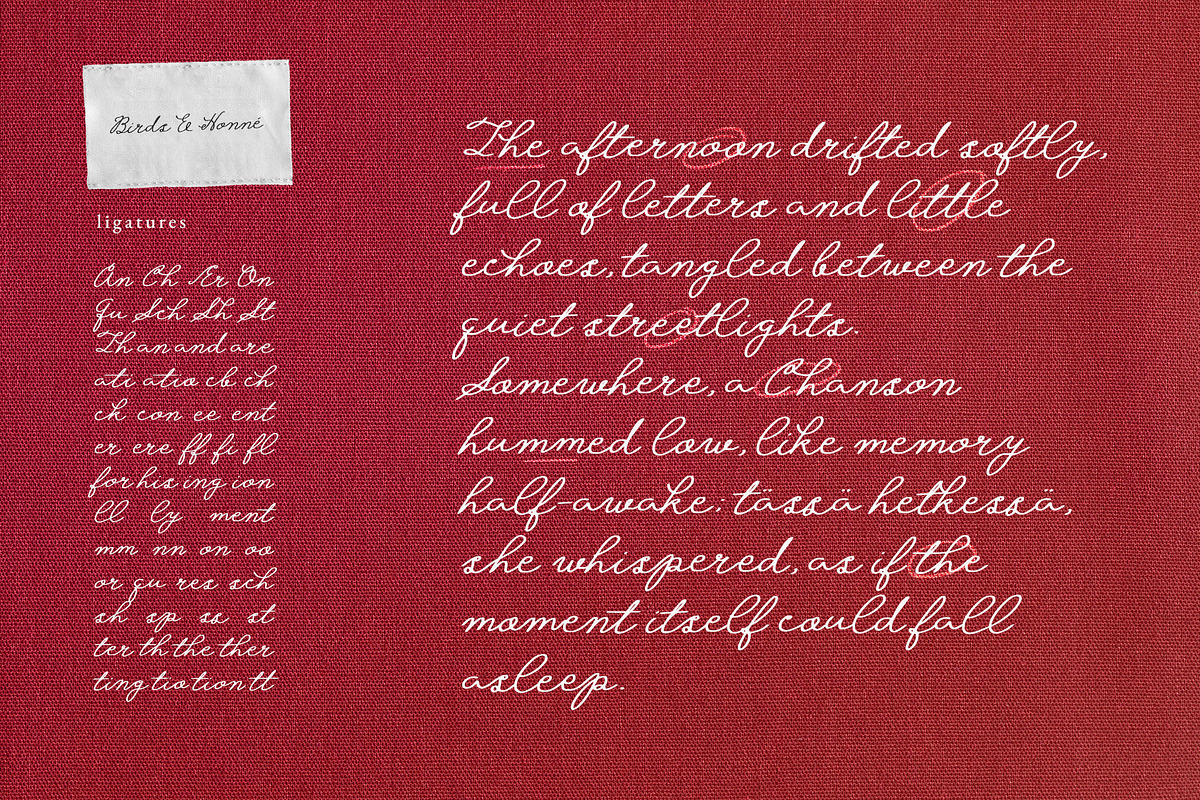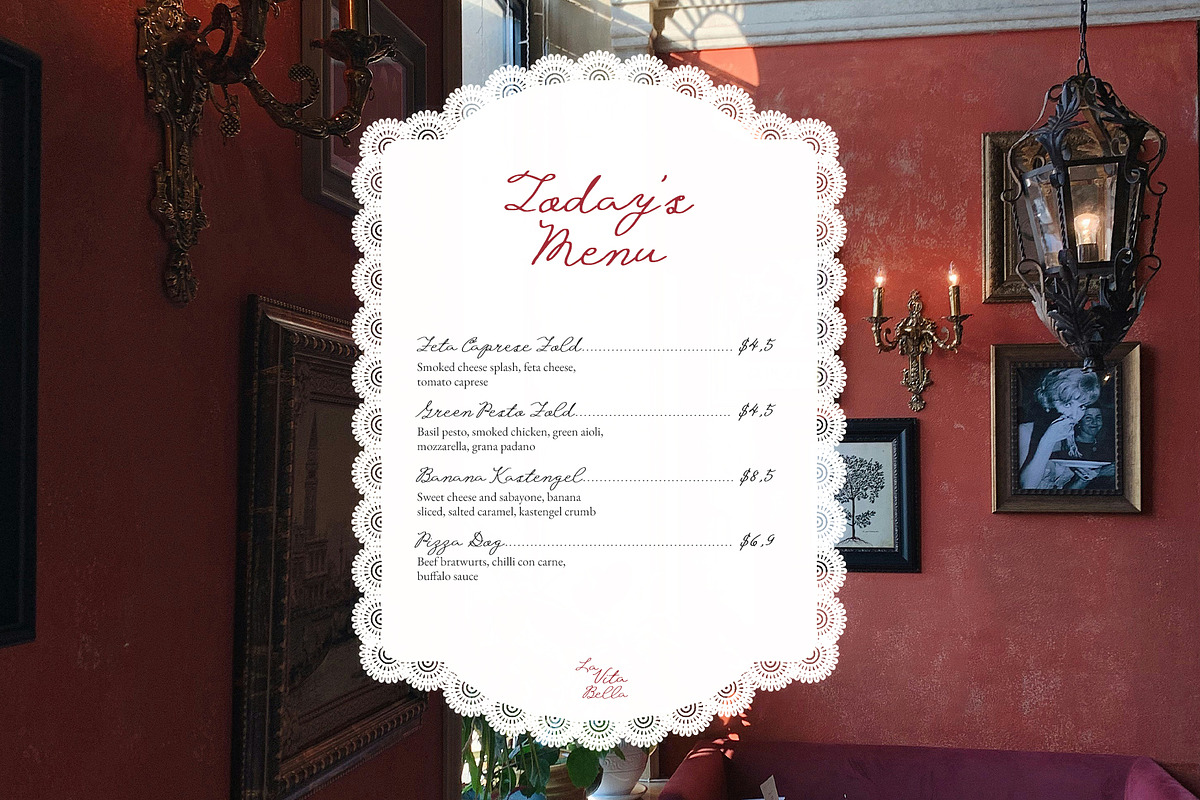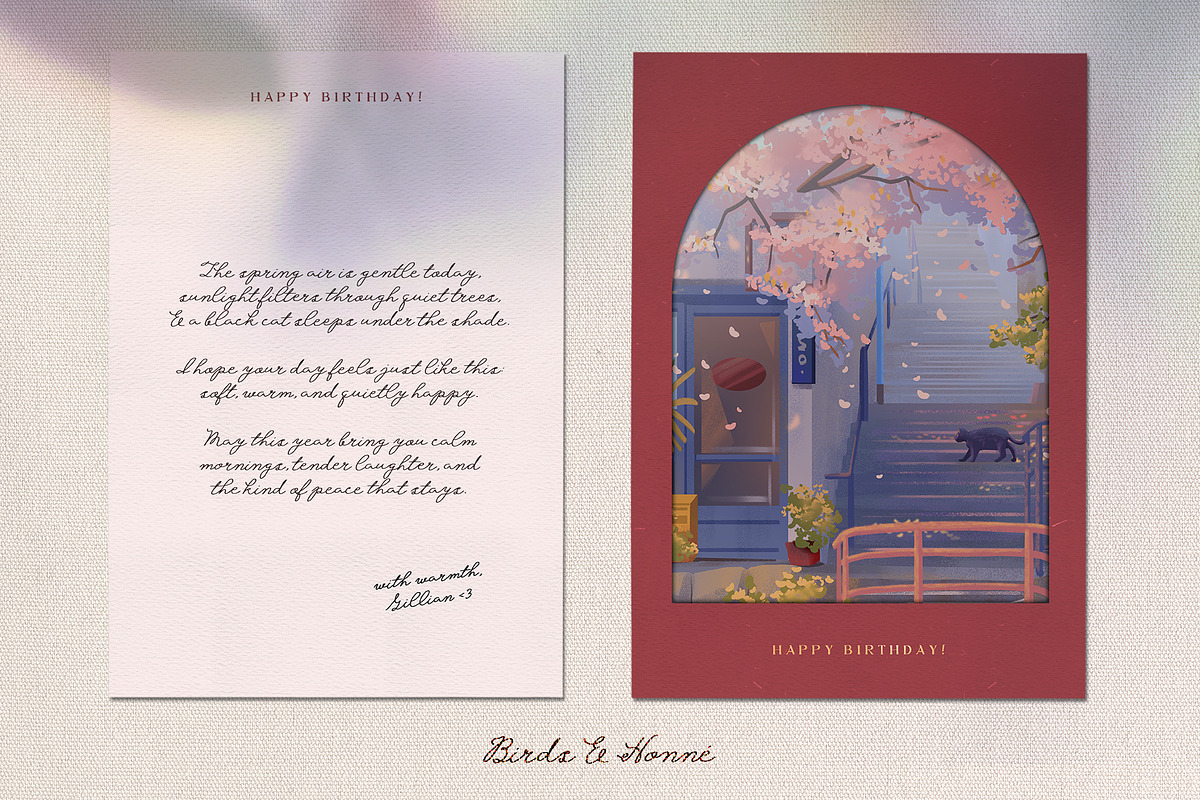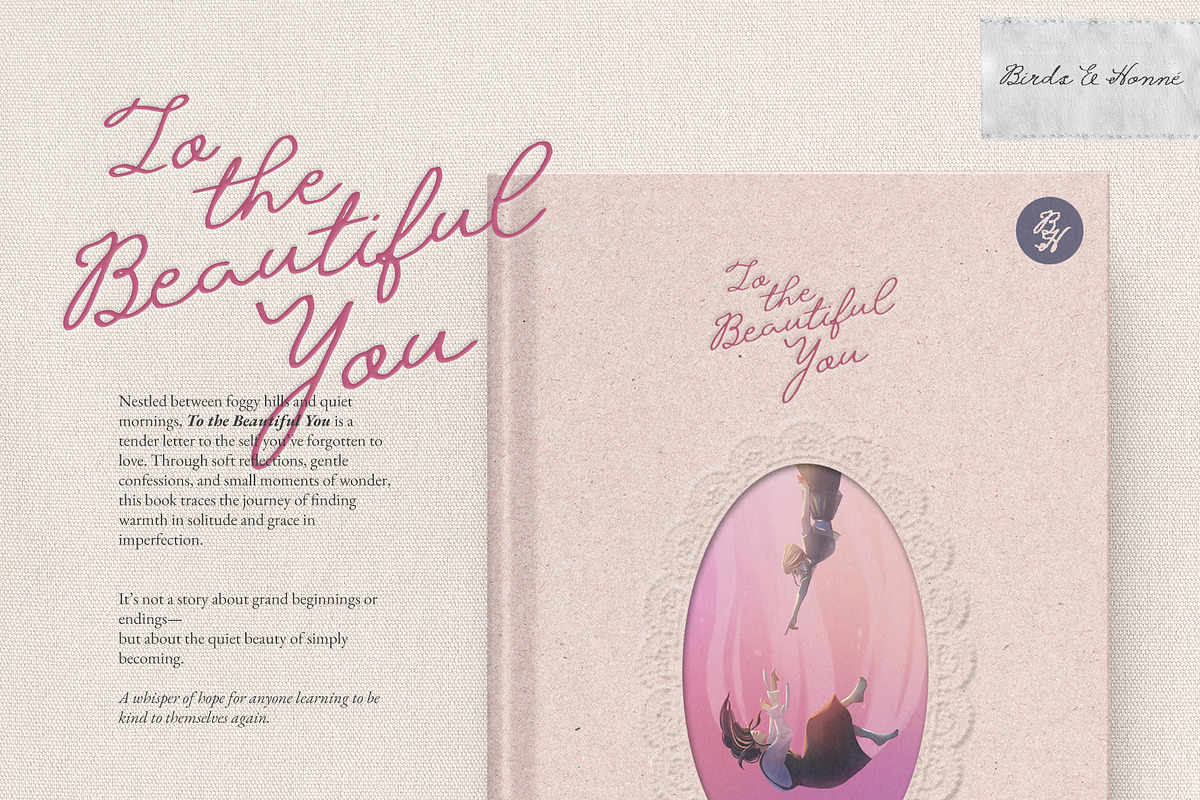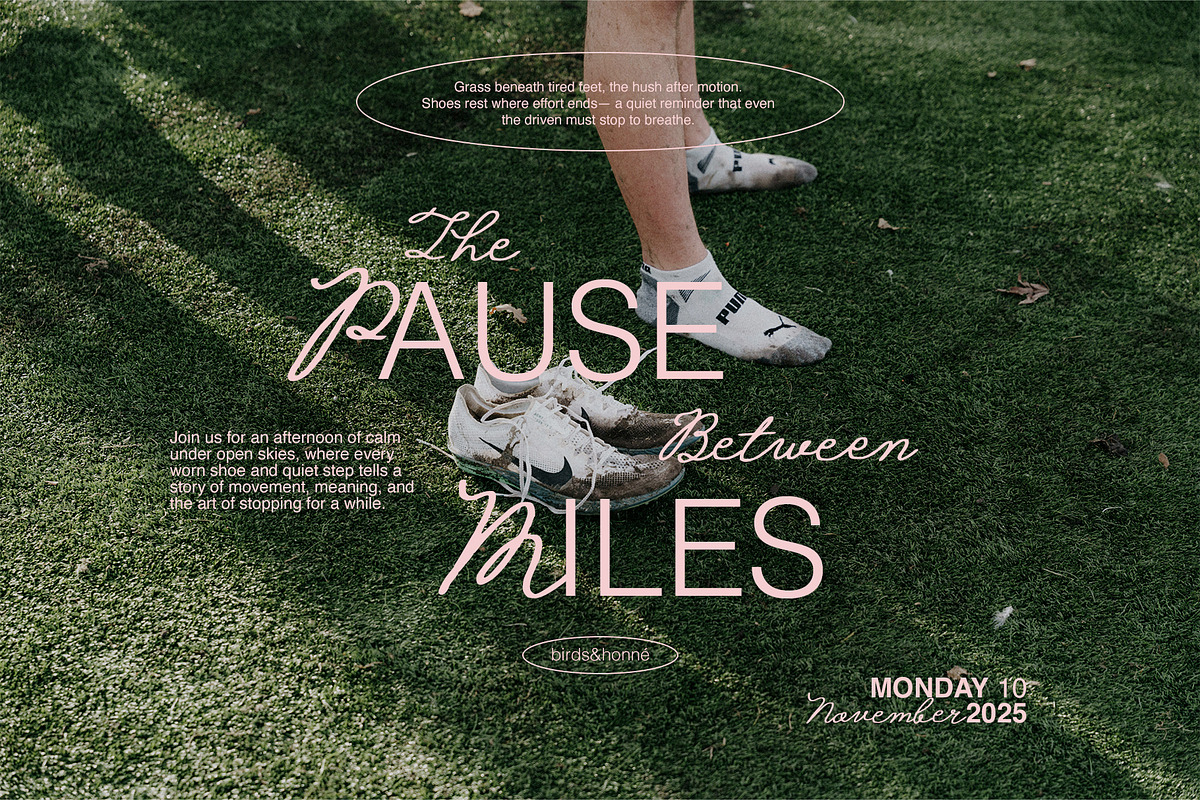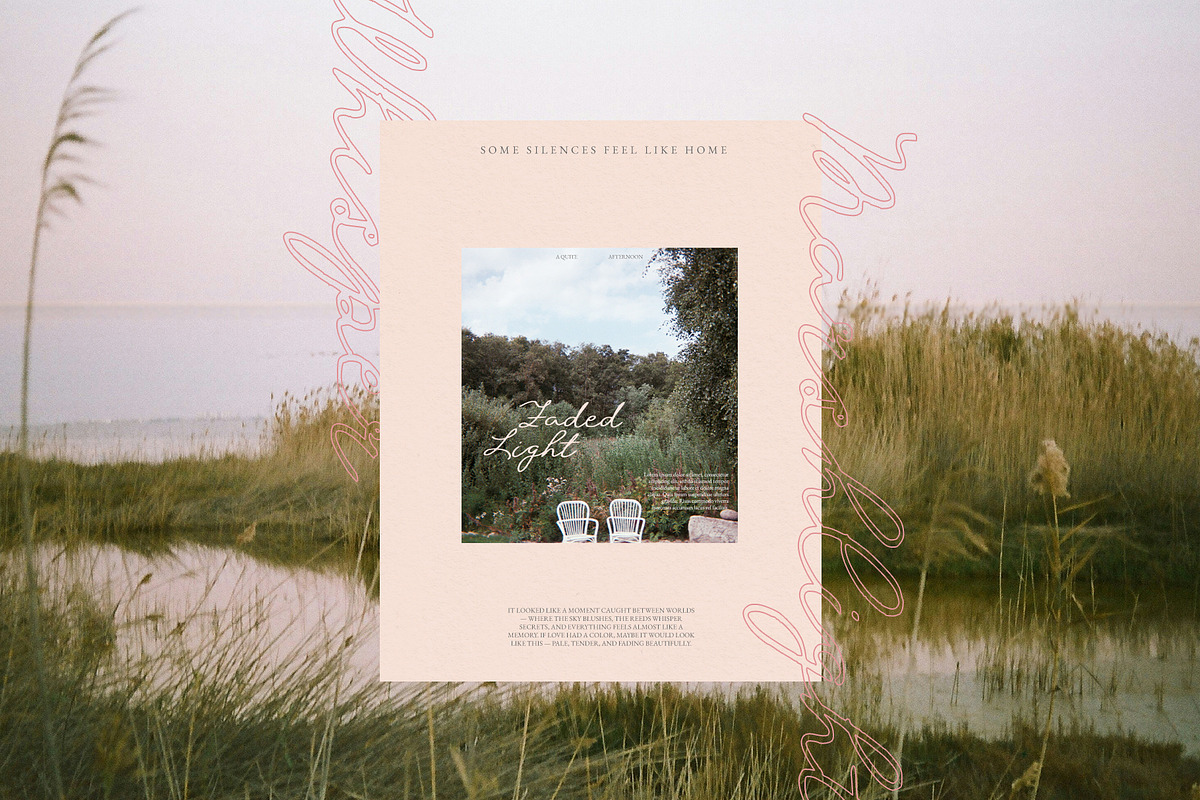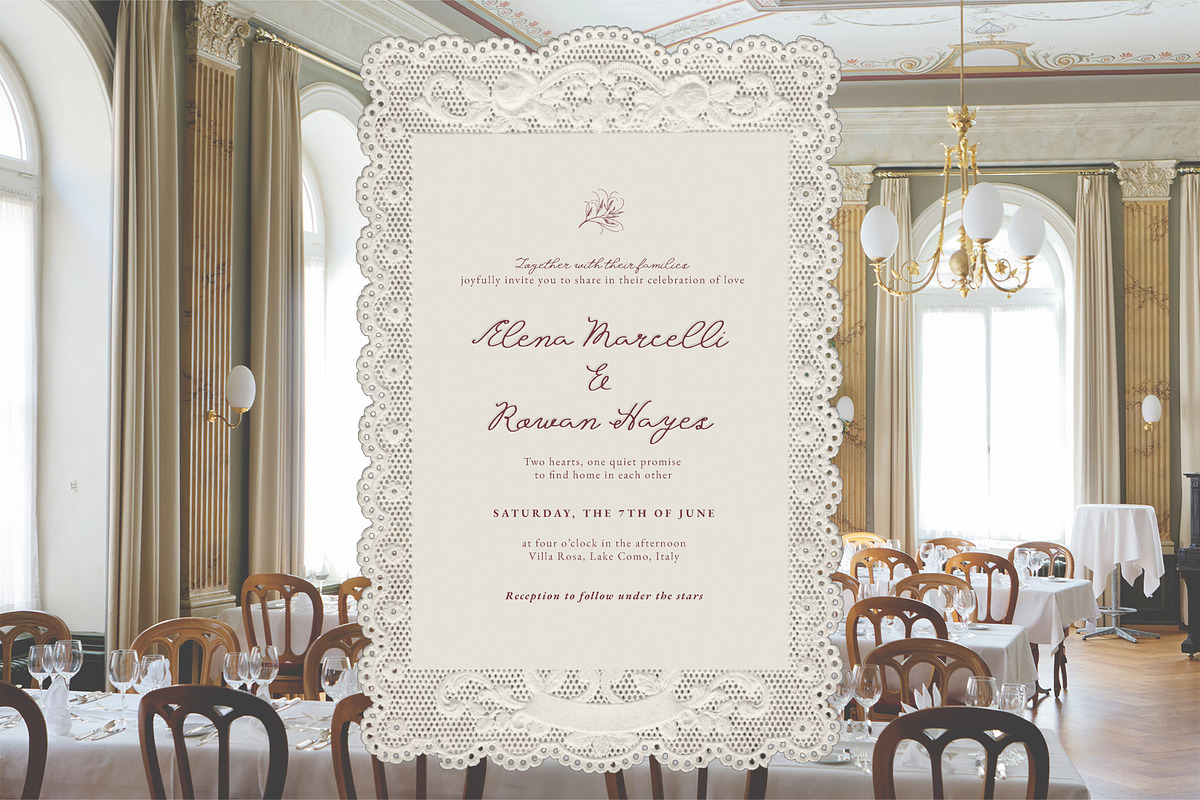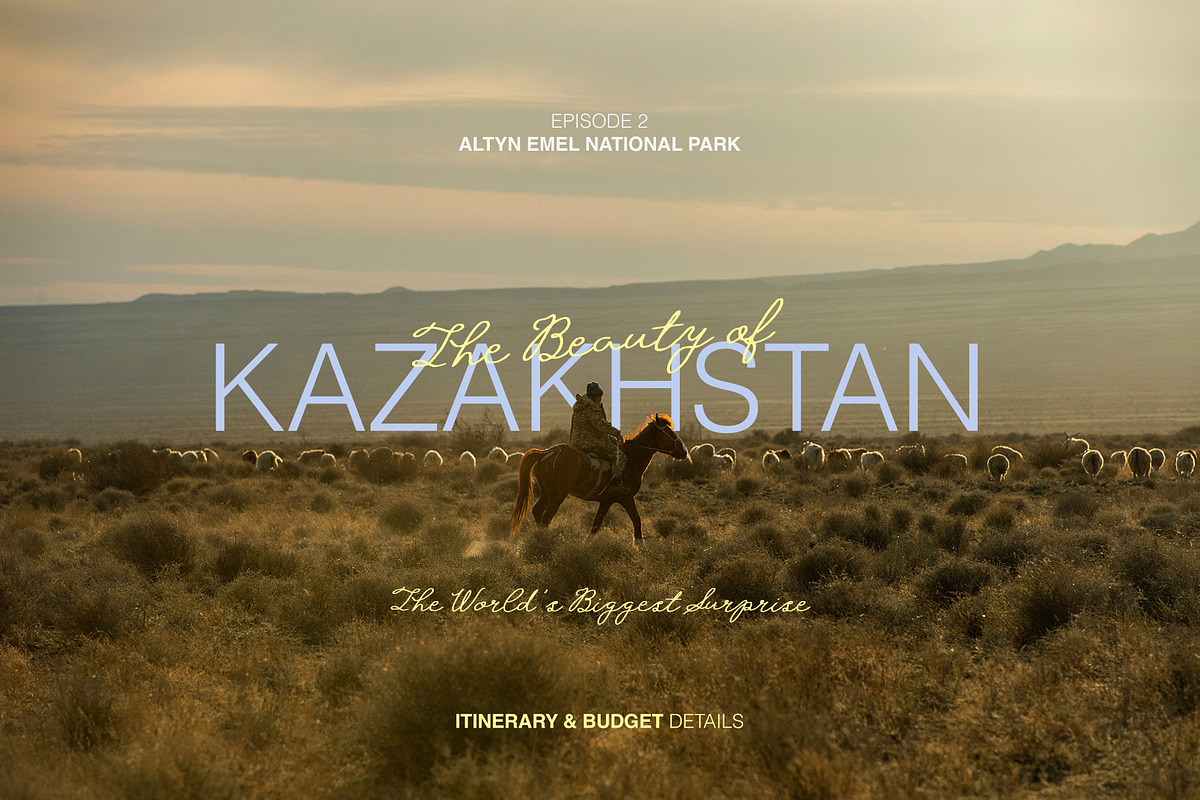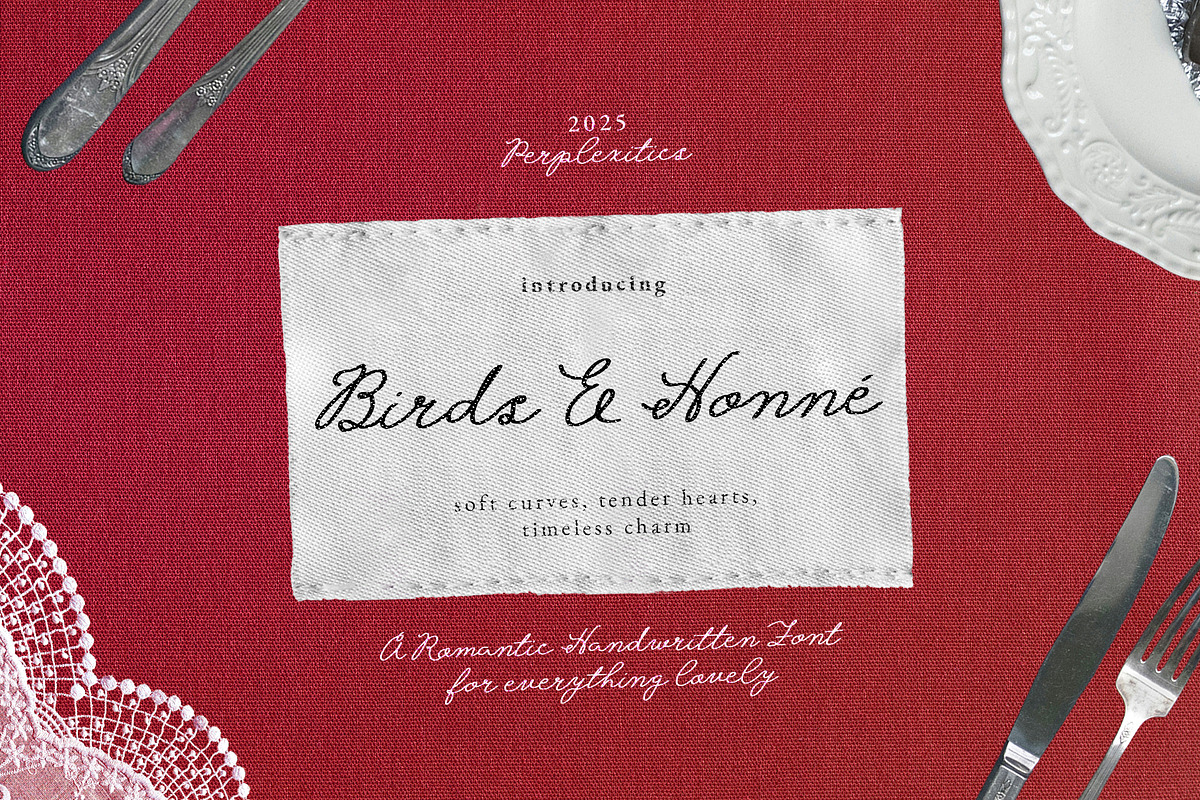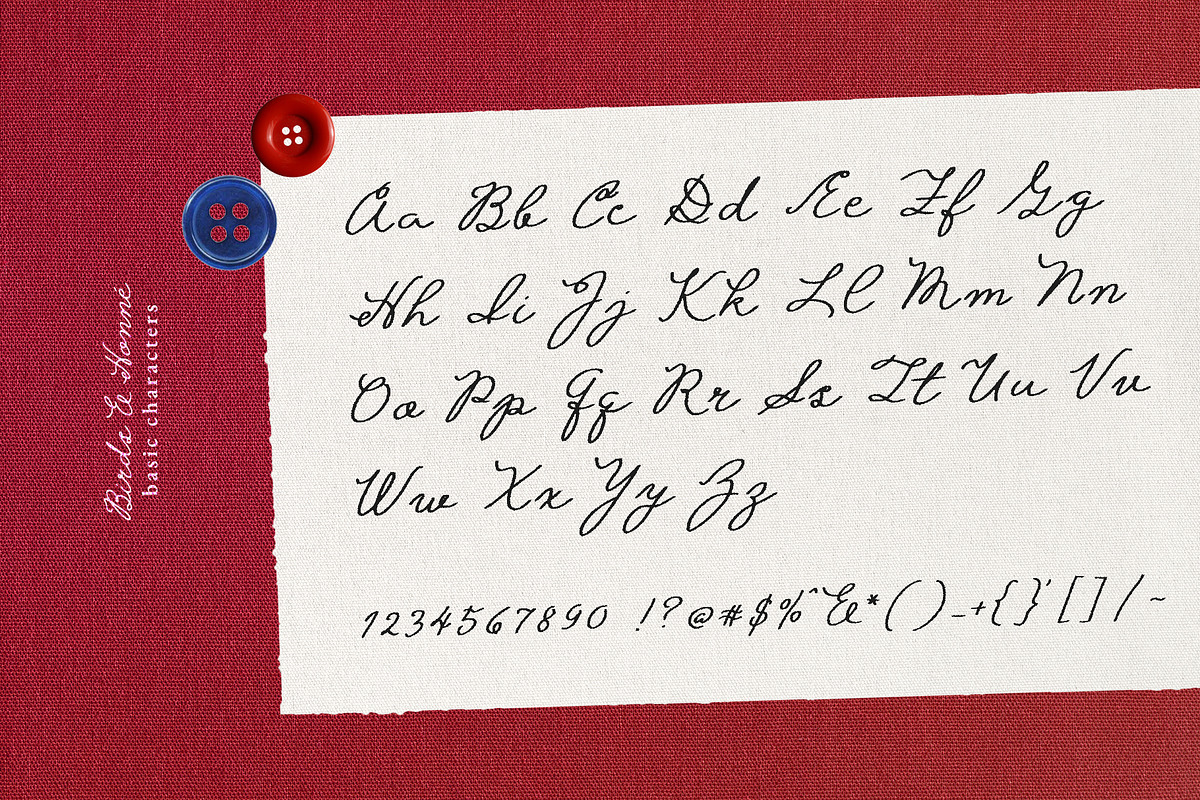
Birds & Honné Romantic Handwritten
Birds & Honné is a romantic handwritten font for everything lovely with soft curves, tender hearts, and timeless charm. Perfect for quotes, wedding invitations, brand designs, logo, or any project that deserves a touch of warmth and sweetness.
Birds & Honné Font is packed with everything you need, including uppercase and lowercase letters, numbers, punctuation, and ligatures. Multilingual support.